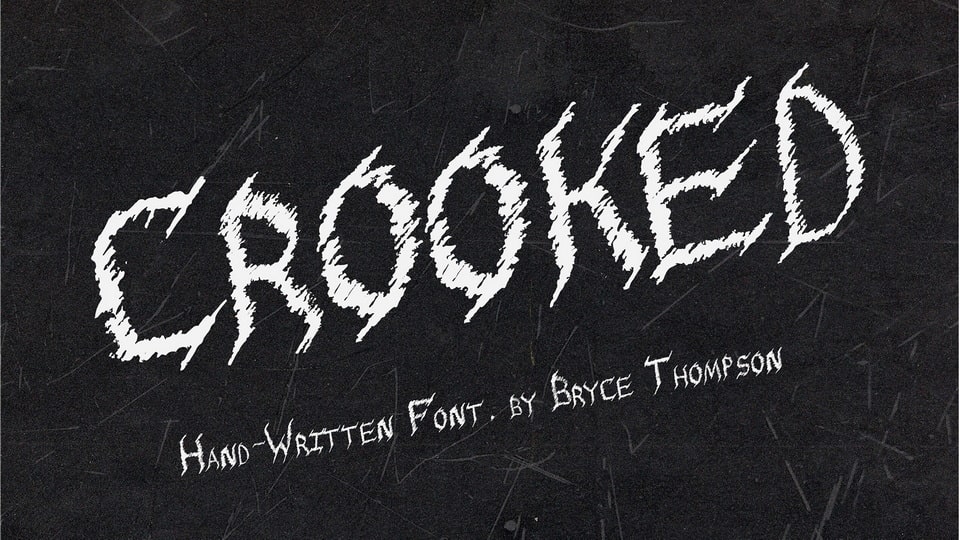
Download Crooked font, a cross-hatched hand lettered typeface to add a creepy touch to any project. Crooked font is perfect for horror titles, Halloween cards, posters, quotes, social media, etc.
Designer: Bryce Thompson